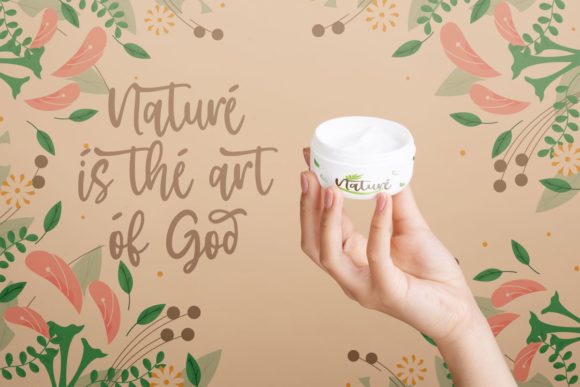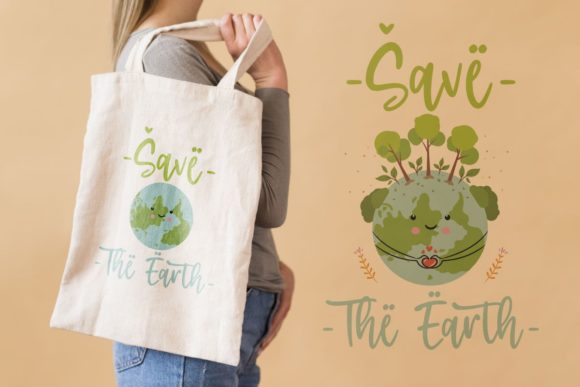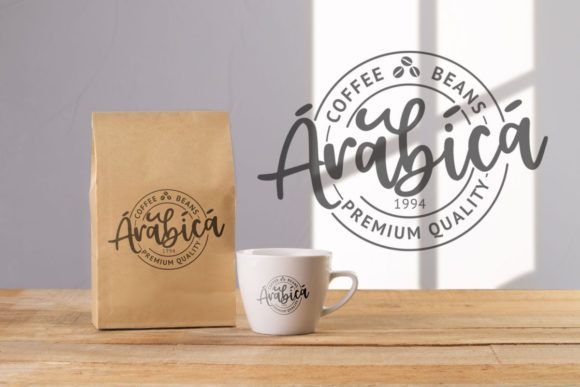
Introduction to Meastry Font
Have you ever sat at your desk, staring blankly at a blank sheet of paper, searching for the perfect font to bring your creative project to life? You’ve browsed through countless options, but nothing seems quite right. That’s where the Meastry Font comes in – a stunning, handwritten font that adds a touch of elegance to any design.
As designers, we’re always on the lookout for high-quality design resources that can elevate our work to the next level. The Meastry Font is more than just a pretty face – it’s a versatile tool that can be used in a wide range of applications, from branding and headings to wedding designs and invitations. And the best part? It’s available for free download, making it an accessible addition to any designer’s toolkit.
Key Features of Meastry Font
- High-quality design resource ideal for creative projects requiring a unique and stylish touch.
- Meastry Font offers a transparent background, allowing for seamless integration into various design elements.
- Meastry Font is available in multiple sizes and resolutions, including 300 DPI and 600 DPI, catering to diverse design needs.
- This versatile font features a unique, modern design that can be used in a variety of contexts, from logos to digital interfaces.
- Meastry Font is fully scalable, allowing designers to easily adjust the font size without compromising on quality.
Honest Review: Meastry Font
I recently came across the Meastry Font while searching for a free download to enhance my creative project. As a designer, I’m always on the lookout for high-quality design resources that can elevate my work. The Meastry Font did not disappoint.
- What works well: ✨ The Meastry Font is incredibly versatile and can be used for a variety of design projects, from branding to digital art. Its unique blend of modern and classic styles makes it a great addition to any design collection.
- What works well: ✨ The font is available in both regular and bold weights, making it easy to add depth and emphasis to your designs.
- ⚠️ The font does not include any italic or oblique styles, which may limit its use in certain design contexts.
- ⚠️ The font’s transparent background may cause issues when used with certain design elements or backgrounds.
Overall, I’m impressed with the Meastry Font and would recommend it to designers looking for a high-quality, free download. With a little creativity, you can work around its limitations and create some truly amazing designs.
Tips for Getting the Most Out of Meastry Font
Use the Meastry Font with a transparent background for a clean and modern design look. Experiment with different font sizes and styles to add visual interest to your design. You can also combine the Meastry Font with other design elements, such as icons or graphics, to create a unique and engaging design.
The Meastry Font is suitable for a variety of design projects, including logos, social media graphics, presentations, and documents. Its high-quality design makes it an excellent choice for both personal and professional projects.